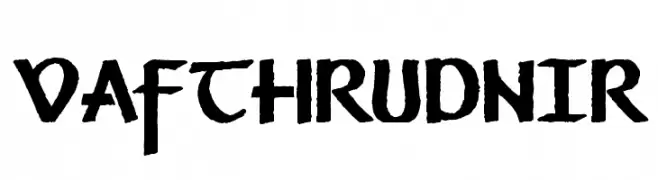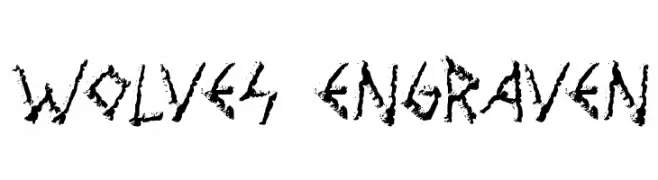
A rugged, distressed font with an ancient, hand-drawn appearance.
A bold, antique-style font with a rugged, hand-crafted appearance.
A bold, geometric font with a rugged, textured appearance and sharp angles.
A bold, geometric font with a rough, textured finish and sharp, angular characters.
A rugged, stone-like font with a fantasy and medieval aesthetic.
A rugged, hand-carved font with a wild, untamed aesthetic.